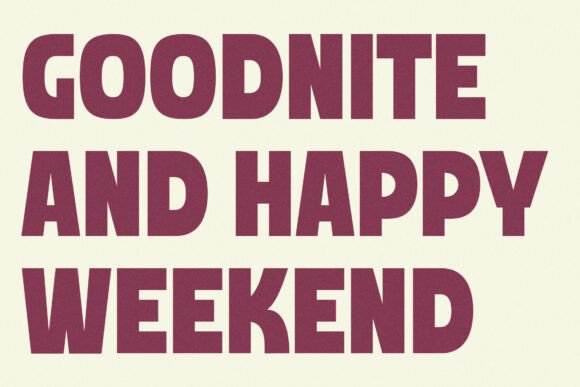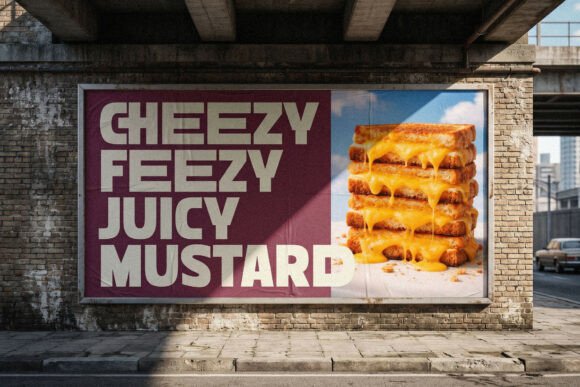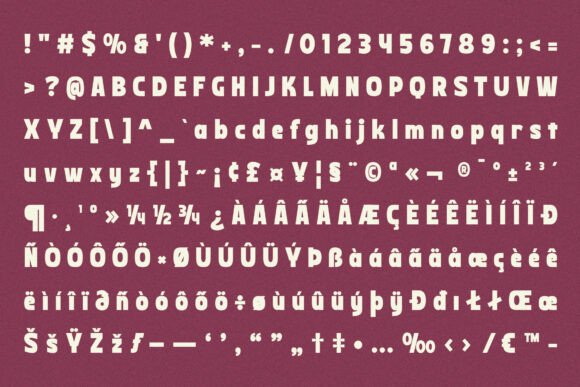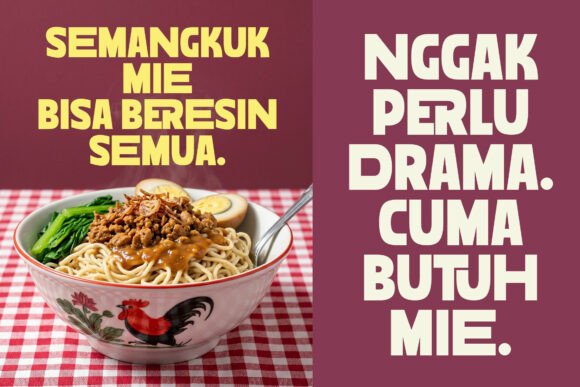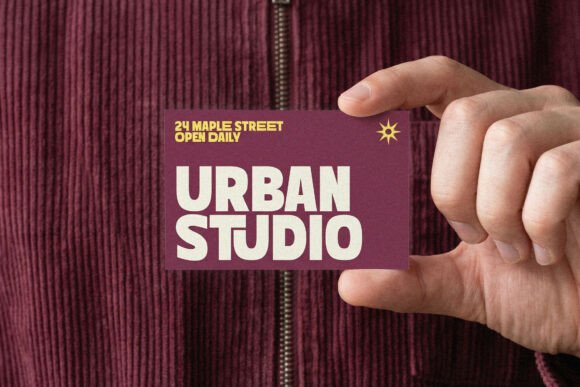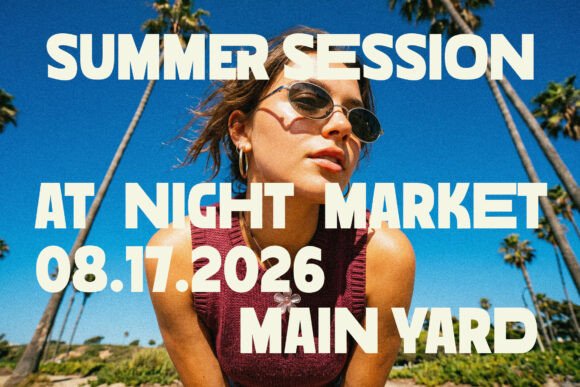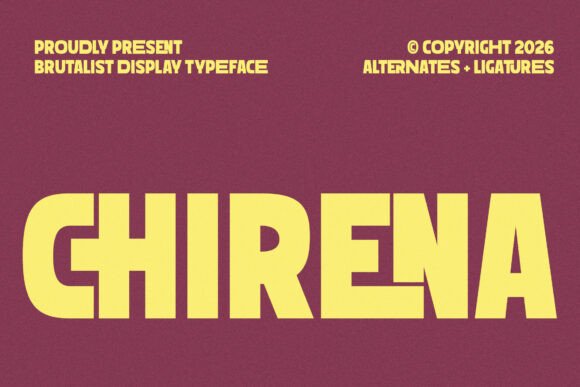
Introducing Chirena Font: The Ultimate Display Sans for Bold Statements
In the world of typography, a font can make or break a design. If you’re looking for a font that commands attention and exudes confidence, look no further than Chirena. This powerhouse display sans is designed to capture the “raw-and-uncompromising” soul of modern design, making it the perfect choice for independent streetwear branding, avant-garde editorial layouts, museum exhibition headers, and high-impact social media headers.
The Unique Characteristics of Chirena
Chirena’s massive, ultra-bold letterforms are uniquely characterized by rhythmic, hand-drawn geometric alternates and tight, industrial ligatures. One of the standout features of this font is the distinctive connected “EN” ligature, which adds a touch of sophistication and elegance to the overall design. This blend of mid-century architectural Swiss style and modern brutalist design creates a font that is both timeless and cutting-edge.
Bridging the Gap between Style and Functionality
Chirena’s design bridges the gap between two seemingly disparate styles, combining the clean lines and geometric shapes of mid-century Swiss design with the raw, industrial aesthetic of modern brutalism. The result is a font that is both visually striking and highly functional. Whether you’re looking to create a bold statement or add a touch of sophistication to your design, Chirena is the perfect choice.
The Benefits of Using Chirena
So why choose Chirena over other display sans fonts? For starters, its heavy structural weight and authoritative personality make it perfect for designs that need to command attention. Additionally, the font’s unique characteristics, such as the connected “EN” ligature, add a touch of elegance and sophistication to any design. Here are just a few benefits of using Chirena:
- Attention-grabbing: Chirena’s bold, ultra-bold letterforms are designed to grab attention and make a statement.
- Versatile: This font is perfect for a wide range of design applications, from streetwear branding to museum exhibition headers.
- Timeless: Chirena’s blend of mid-century Swiss style and modern brutalism creates a font that is both timeless and cutting-edge.
Design Applications for Chirena
So what can you use Chirena for? The possibilities are endless, but here are a few ideas to get you started:
- Independent streetwear branding: Chirena’s bold, edgy design makes it perfect for streetwear brands that want to make a statement.
- Avant-garde editorial layouts: This font is ideal for editorial layouts that require a bold, attention-grabbing font.
- Museum exhibition headers: Chirena’s unique blend of style and functionality makes it perfect for museum exhibition headers.
- Social media headers: Use Chirena to create high-impact social media headers that demand attention.
In conclusion, Chirena is a powerhouse display sans that is sure to make a statement in any design. With its unique blend of mid-century Swiss style and modern brutalism, this font is perfect for designers and crafters who want to create bold, attention-grabbing designs. Whether you’re working on a streetwear branding project or a museum exhibition, Chirena is the perfect choice. So why wait? Download Chirena today and start creating designs that command attention.